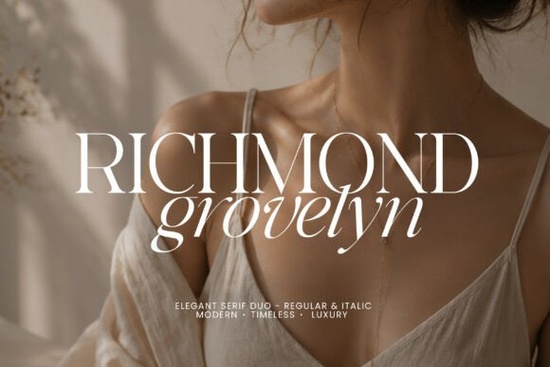
If you're looking for a serif font that brings quiet confidence and refined detail to your designs, Richmond Grovelyn Font is a thoughtful choice. It’s not just another elegant typeface it’s a pair of carefully balanced letters: a strong regular serif and a flowing italic companion. Together, they work well in branding, invitations, packaging, and editorial layouts where luxury feels natural, not forced.
What makes Richmond Grovelyn stand out?
Unlike many fonts that lean too hard into drama or ornamentation, Richmond Grovelyn finds its strength in subtlety. The high-contrast strokes give it a timeless feel like something you’d see in a classic fashion magazine from the 1950s, but with modern clarity. The curves are smooth, the spacing generous, and the ligatures (those little connecting flourishes between letters) add a touch of refinement without overwhelming the design.
You’ll find it especially useful when you want to communicate quality without shouting. Whether you’re designing a wedding invitation suite, a skincare product label, or a boutique brand logo, this font helps your project feel polished and intentional.
Who uses Richmond Grovelyn and why?
- Luxury brands appreciate how it supports a premium image without needing extra graphics.
- Fashion designers use it for lookbooks and campaign headers because it complements bold visuals.
- Print-on-demand sellers love its versatility across mugs, posters, and stationery.
- Small business owners find it easy to pair with simple layouts while still standing out.
- Creative hobbyists enjoy using it for personal projects like journals or digital art.
It also works well in social media content especially for lifestyle brands aiming for an authentic, elevated vibe. The italic version adds rhythm to long headlines, making text more readable while keeping visual interest.
What’s included in the font package?
It includes full uppercase and lowercase letters, standard numbers, punctuation marks, and support for multiple languages. That means if you’re working on international projects or multilingual content, you won’t hit roadblocks due to missing characters.
How does it compare to other serif fonts?
If you’ve used similar fonts like Semika or Sharp History, you’ll notice Richmond Grovelyn sits somewhere between them: more delicate than Sharp History, less rigid than Semika. It’s not as minimal as the typewriter-style Minimalist Serif fonts, nor as ornate as some display typefaces. Instead, it fits in the sweet spot for everyday professional use.
For those who love soft elegance, Milk & Honey offers a similar mood but with a slightly softer structure. Richmond Grovelyn has sharper contrast and stronger character, which gives it more punch in headlines.
Best practices for using this font
- Use the regular weight for body text or key headings.
- Pair the italic with the regular in headlines to create visual rhythm.
- Keep line spacing generous this font breathes better with room around it.
- Avoid using it in large blocks of text; it shines best in short, impactful phrases.
- Combine with neutral backgrounds and clean layouts to let the font lead.
When used thoughtfully, Richmond Grovelyn doesn’t just make your design look good it helps tell a story of care, attention, and quiet confidence.
Whether you're building a brand identity, launching a product line, or creating handmade gifts, this font supports your vision with grace. It’s not flashy, but it’s memorable. And in creative work, that kind of quiet strength often lasts longer than loud trends.